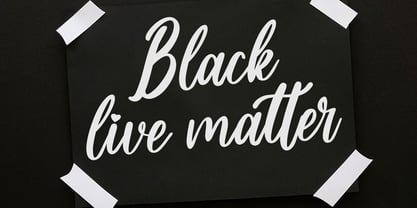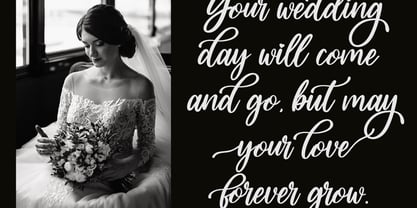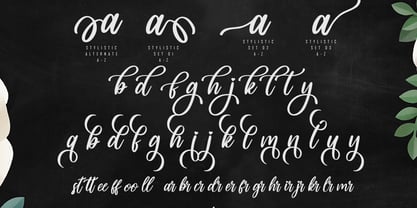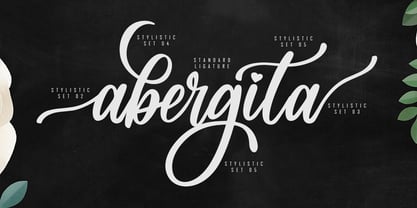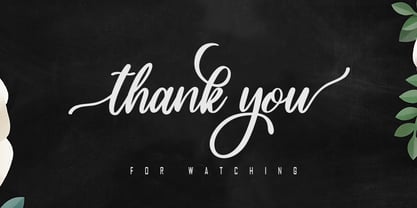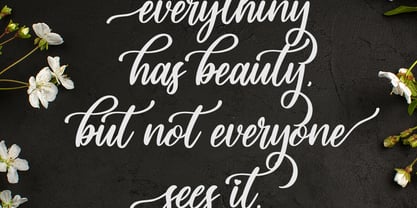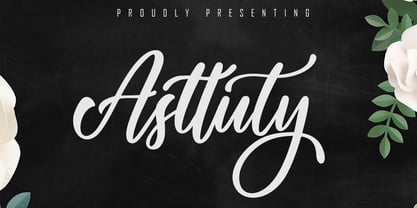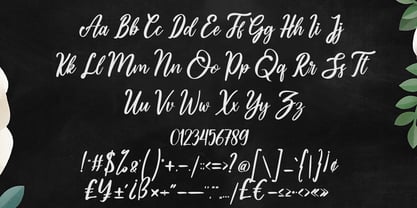
Asttuty
by Skiiller Studio
The Asttuty Font Family was designed by Irfan Mahmudin and published by Skiiller Studio. Asttuty contains 1 styles.
Asttuty is a beautifully crafted handwritten script font featuring graceful curves, smooth strokes, and a modern calligraphy style. Ideal for branding, wedding invitations, logos, quotes, product packaging, and feminine design themes, it adds a luxurious and personal touch. Its flowing, expressive letterforms create a warm, elegant, and sophisticated look for any creative project.
Designers: Irfan Mahmudin
Publisher: Skiiller Studio
Foundry: Skiiller Studio
Design Owner: Skiiller Studio